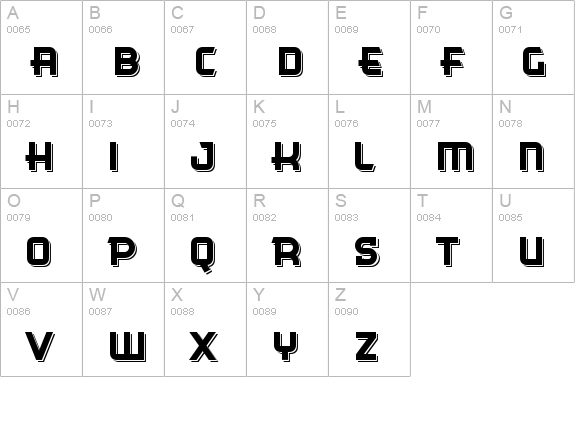
Cinema Gothic BTN Shadow font is a bold and dramatic typeface that exudes a sense of mystery and elegance. Its unique shadow effect adds depth and dimension to any design, making it perfect for movie posters, book covers, and other creative projects. The font features sharp, angular letterforms that give it a modern and edgy look. What sets Cinema Gothic BTN Shadow font apart is that it is available for free download at FontsMarket.com. This means that you can easily access this stylish and versatile font without any cost, making it a great choice for designers on a budget or anyone looking to add a touch of sophistication to their projects. Whether you're working on a film project, a branding campaign, or a personal creative endeavor, Cinema Gothic BTN Shadow font is sure to make a bold statement and leave a lasting impression. Download it today and unleash your creativity with this striking typeface.